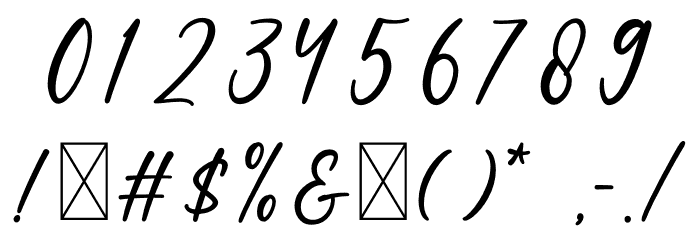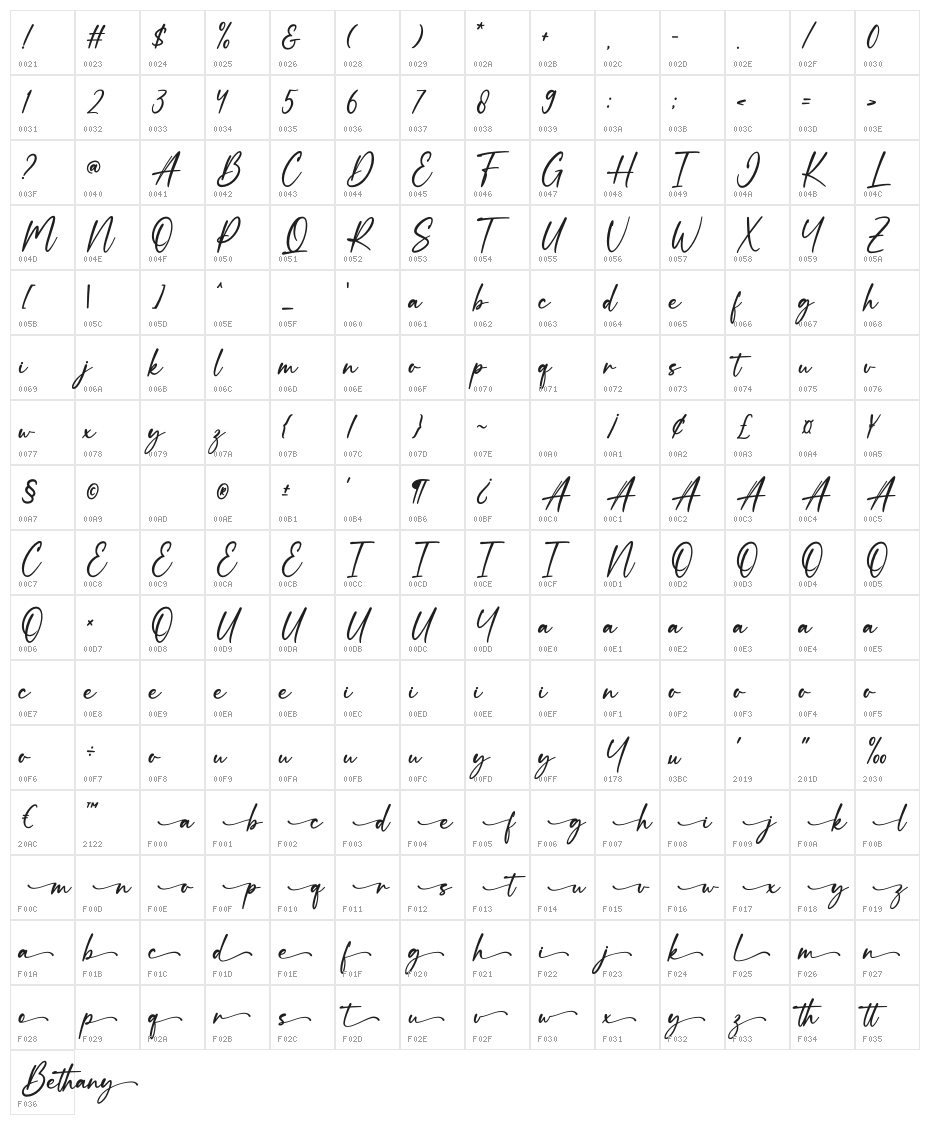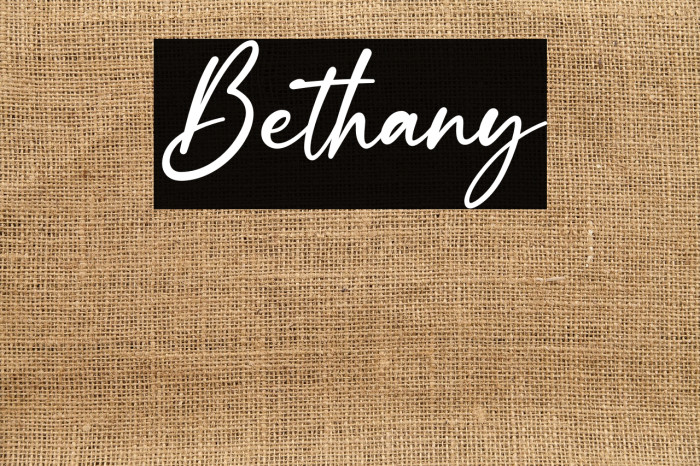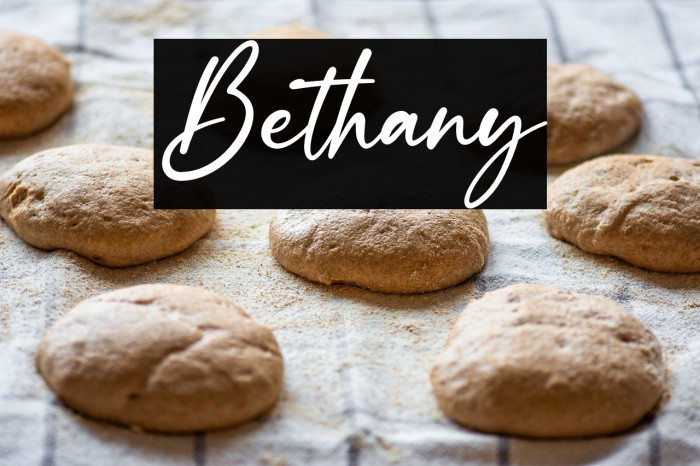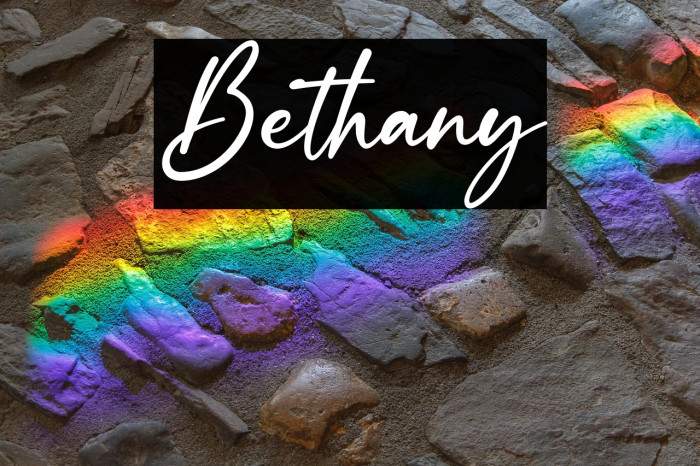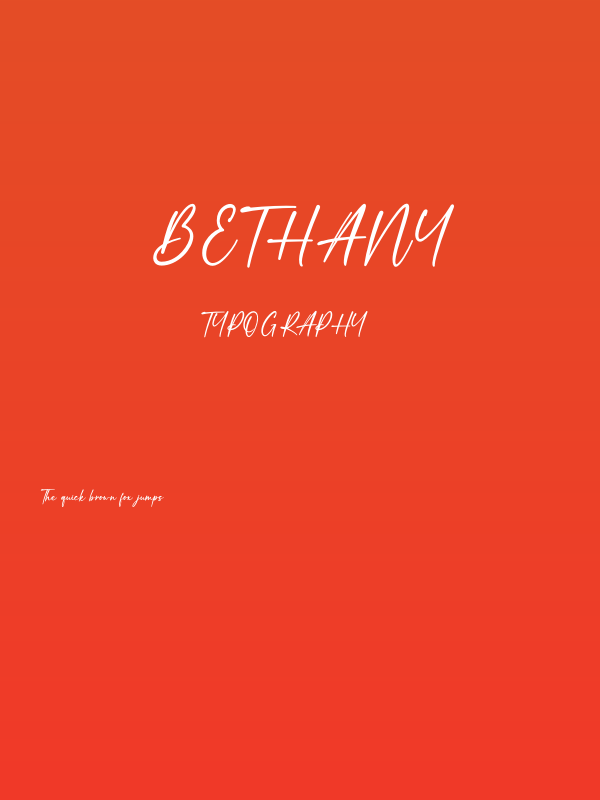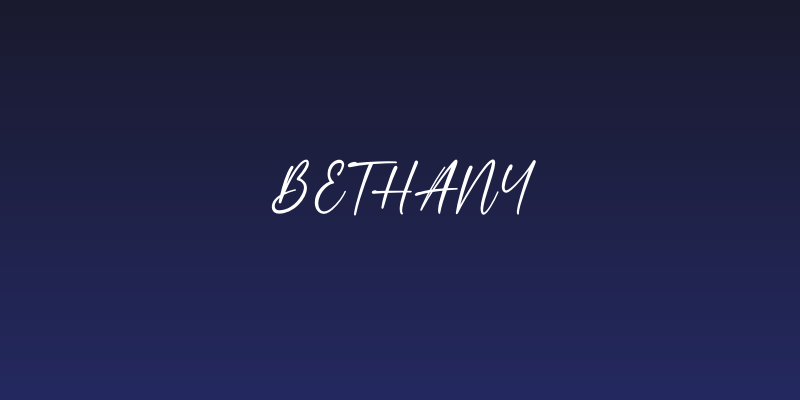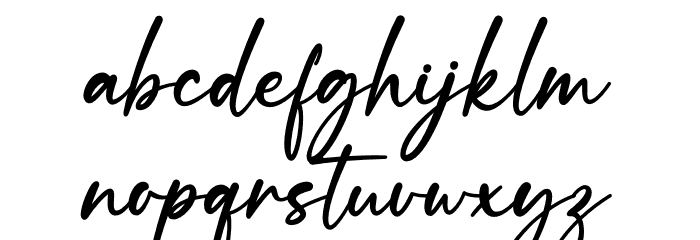
Bethany Font
Bethany Description
This font features a flowing, cursive style that mimics natural handwriting. The uppercase letters are elegantly elongated, with smooth curves and a slight slant, giving a sense of movement and grace. The lowercase letters maintain a consistent style, with rounded edges and fluid connections between characters. The numerals are clear and legible, maintaining the cursive theme with subtle flourishes. Special characters are integrated seamlessly, adding to the overall cohesive look. This font exudes a personal and artistic touch, making it suitable for creative and expressive designs.